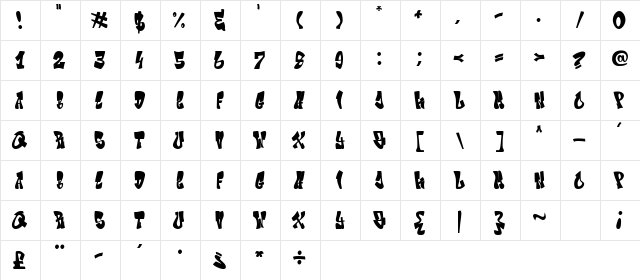
Giecella Kids Regular
| Designer | Panji, Memet, Rama |
Design Context for Giecella Kids Typeface
Giecella Kids trades formality for fun, with bouncy, characterful letterforms that bring warmth and energy to any project.
Font Pairing: Pairs well with a rounded or humanist sans for body copy, maintaining the friendly tone without relying on Giecella Kids to carry extended reading.
Pro Tip: Avoid using Giecella Kids for long passages of text — it works best for headlines, labels, and short calls to action.